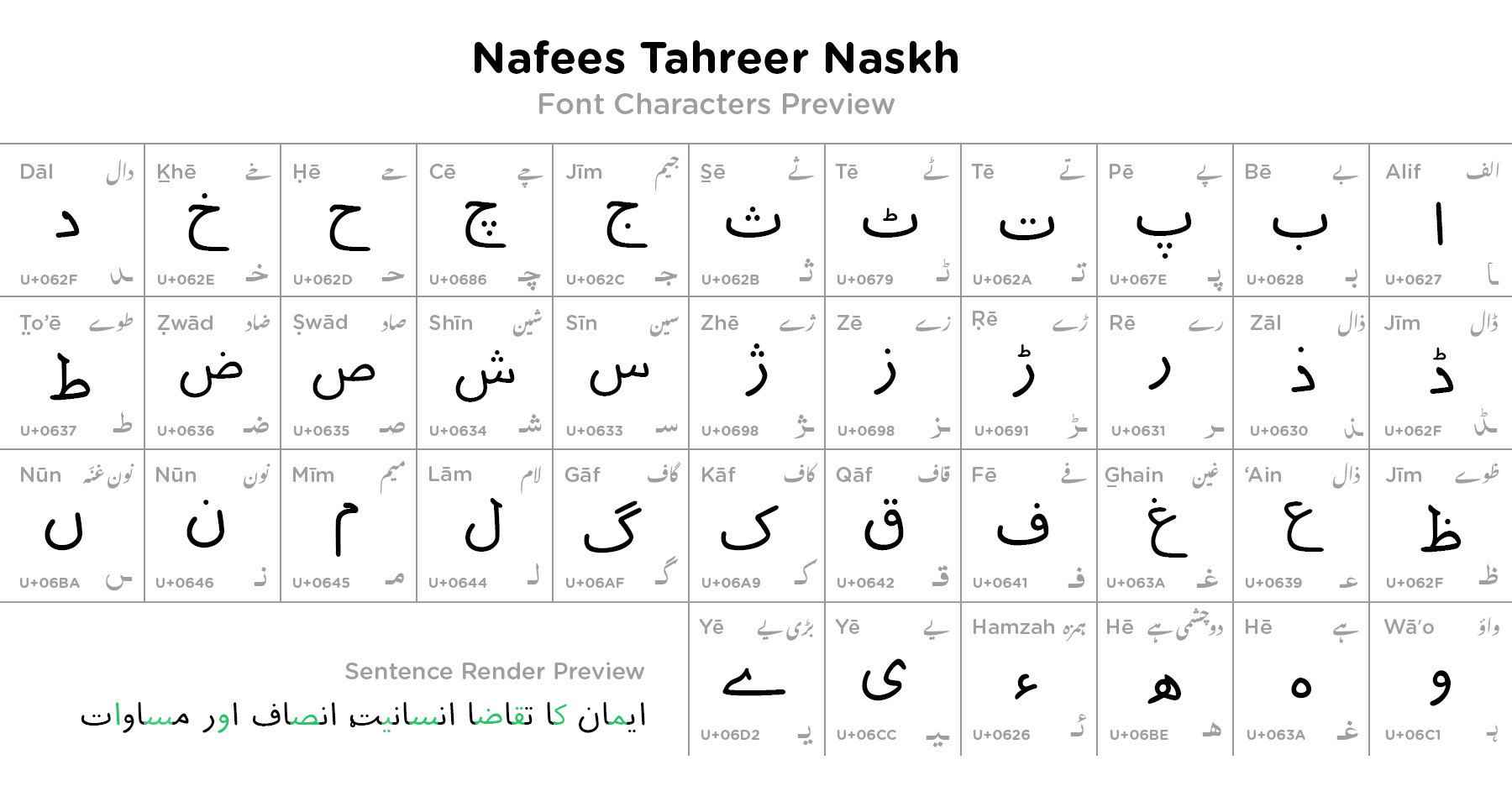
Nafees Tehreer Naskh is a soft and regular-style Urdu font designed with a wide letterform. The Photex Decorative Nastaleeq Font, created by Mr. Jamil-ur-Rehman and released by the Center for Research in Urdu Language Processing (CRULP), draws inspiration from the Naskh script while incorporating modern elements. With 195 characters and 468 glyphs, it builds upon the legacy of Nafees Naskh, adhering to calligraphic principles and Lahori style under Syed Nafees Al-Hussaini’s guidance. Its thin, wide letters boast even spacing, soft corners, and sharp edges, balancing traditional and contemporary design.
The font’s delicate strokes and consistent thickness lend it a formal appearance, ensuring readability on screens and in print. Its straight, formal characters with sharp edges and blunt corners contribute to a professional look, making it suitable for extended text in books, newspapers, and other publications. Supporting multiple languages like Arabic, Latin, Urdu, and Persian, it caters to diverse linguistic needs without losing clarity. It remains highly legible by focusing on clear letter shapes over the elaborate decorations, especially in smaller font sizes. Nafees Tehreer Naskh’s high legibility and formal style make it ideal for various uses, particularly in body text for printed materials where readability is essential. It serves as a practical choice for Urdu users seeking a clear and readable Naskh script font for digital applications.